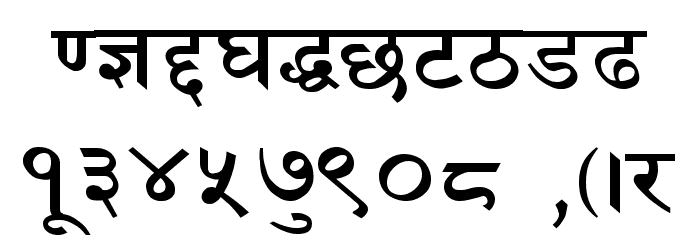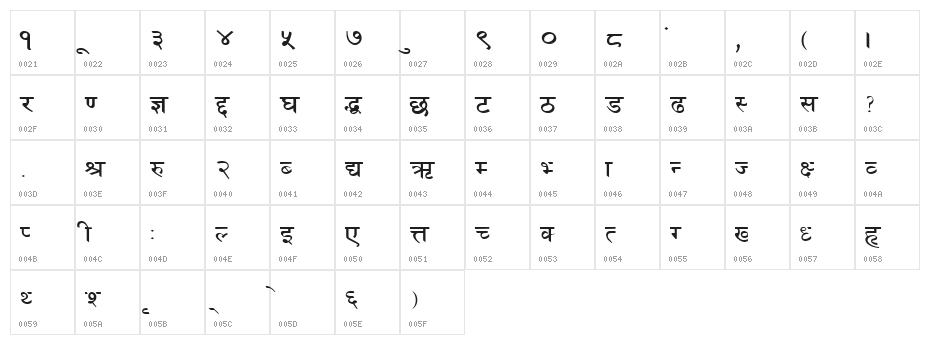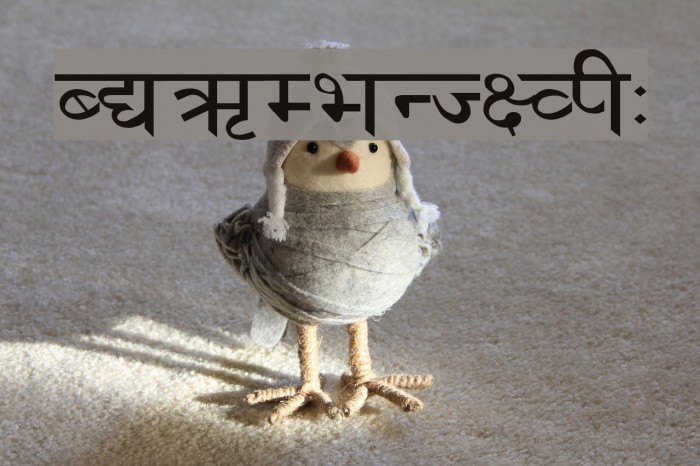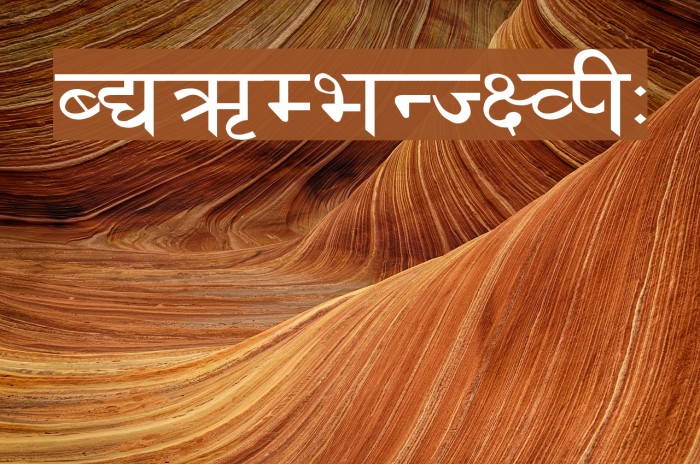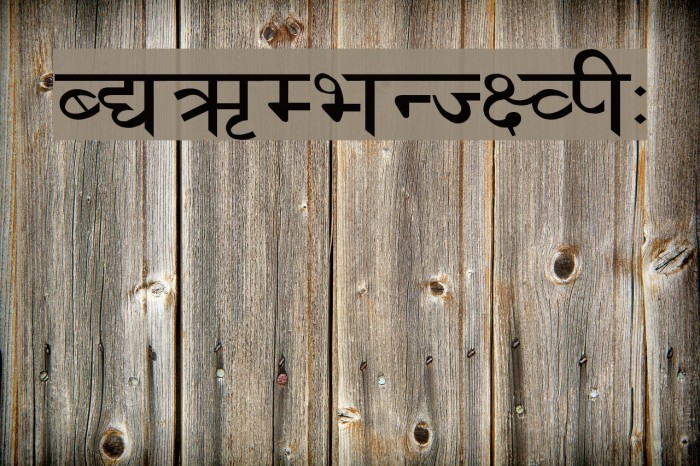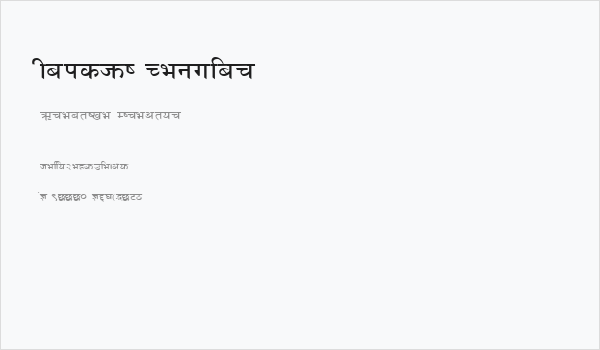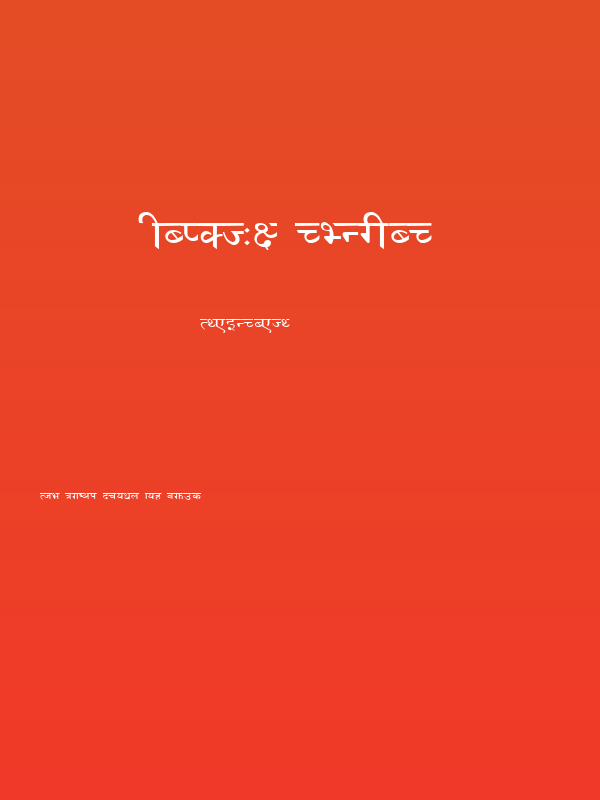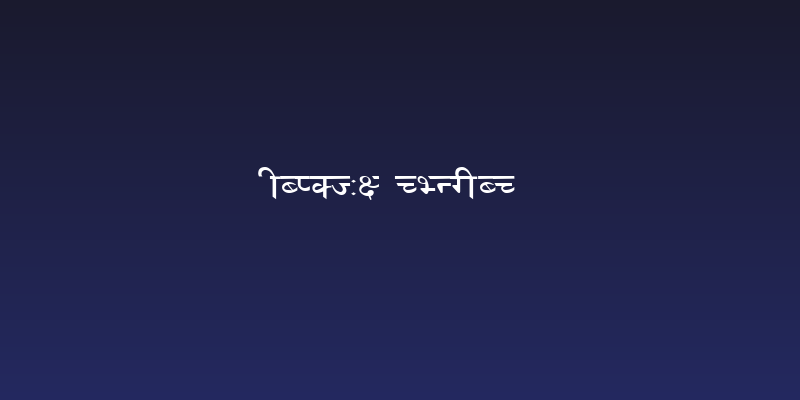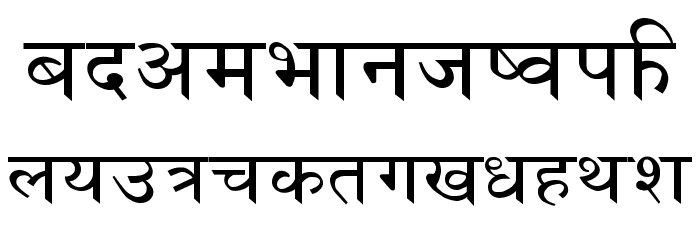
Lakshmi Regular Font
Lakshmi Regular Description
This font is a traditional Devanagari script characterized by its elegant and structured form. The characters exhibit a balanced stroke width, providing a harmonious appearance. The script maintains a consistent baseline with a slight curvature in certain characters, enhancing readability. The vertical strokes are prominent, while the horizontal lines are subtle, creating a pleasing contrast. The font is suitable for formal and educational contexts, offering a classic yet modern feel. Its clarity and precision make it ideal for conveying information effectively.
| Use Case | Body text, Educational materials |
| Proposed Projects | Ideal for educational materials, formal documents, and cultural publications. |